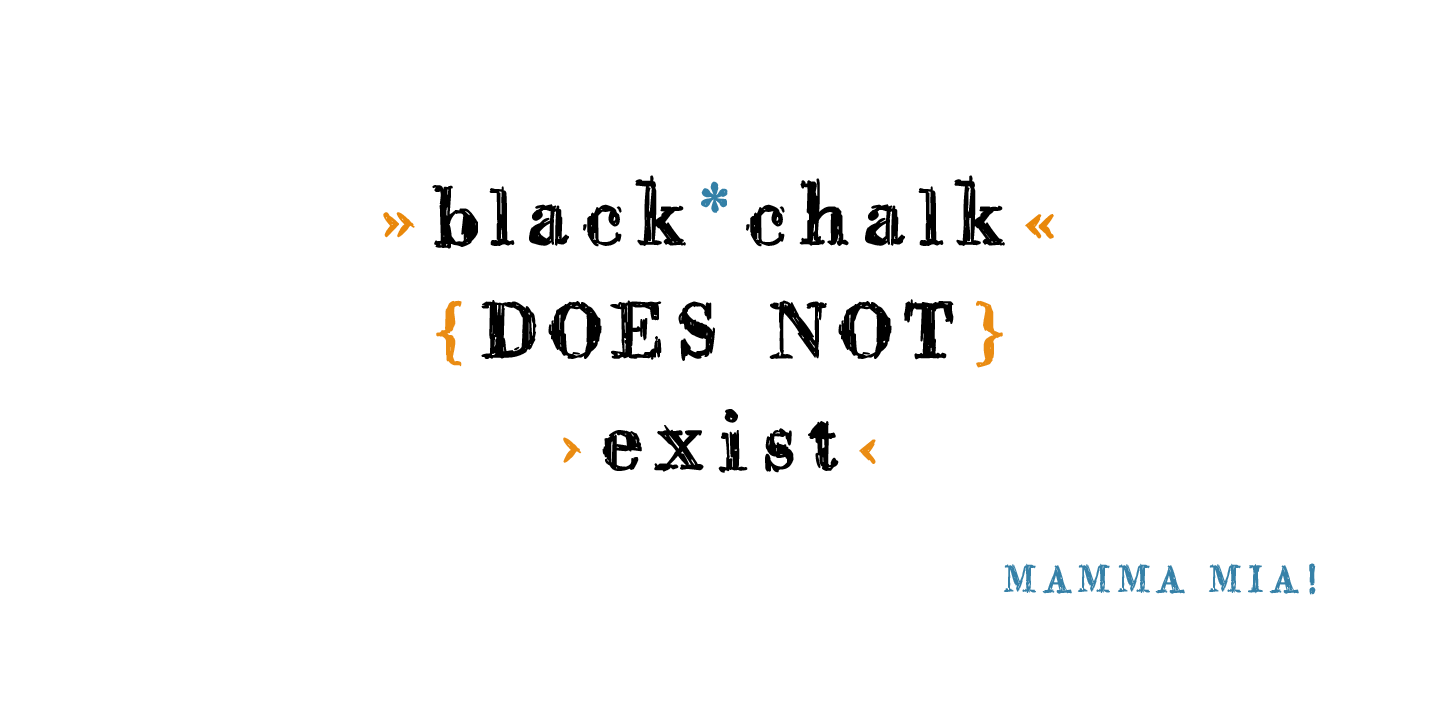
M8T Mamma Mia Font is ideal for Italian restaurant branding, traditional pizzeria signage, Mediterranean food packaging, authentic pasta house menus, Italian cultural festival posters, romantic travel campaigns, family-style dining materials, artisan food labels, warm hospitality design, and passionate culinary publications.
What makes M8T Mamma Mia Font exciting is its passionate Italian character and warm Mediterranean spirit that captures the heartfelt emotion and culinary tradition of authentic Italian culture. This delightful typeface features expressive letterforms with playful curves and spirited flourishes that evoke the joy of family gatherings, delicious homemade pasta, and the warmth of Italian hospitality. The font's animated personality and cultural authenticity make it perfect for brands seeking to convey passion, tradition, and the irresistible charm of Italian lifestyle.
The M8T Mamma Mia Font family includes passionate variations: Regular, Bold, Light, Italic, Display, and Decorative versions. Each style maintains the core Italian aesthetic while offering different levels of expressiveness and visual drama. The complete family provides designers with comprehensive tools for creating emotionally engaging, culturally authentic visual communications that transport audiences to the heart of Italy.
When your project needs Italian passion and Mediterranean warmth, M8T Mamma Mia Font Free Download delivers bellissimo results. This charming typeface transforms ordinary food communications into emotional culinary experiences that make hearts sing and mouths water. Its authentic character makes it perfect for both traditional Italian establishments and contemporary brands celebrating Italian culture. Download M8T Mamma Mia Font today and add Italian amore to your designs with this remarkable typeface that perfectly captures Mediterranean passion, culinary tradition, and authentic Italian soul.